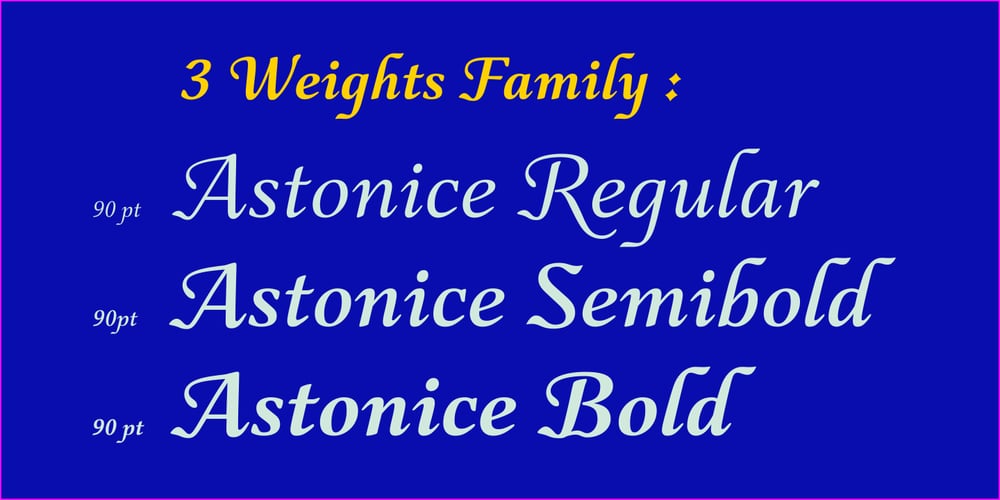
Astonice Font Family was designed by Sudarmaji and published by Asritype. Astonice contains 3 styles and family package options. Astonice is a beautiful calligraphy font family with 3 weight variants: Regular, Semibold and Bold. Astonice has more than 1100 glyphs each, has opentype feature such as stylistic sets, stylistic alternatives, and old number form. Astonice supports a wide range language: Latin plus Greek and Cyrillic. Astonice is suitable for most typing and design such as cards, logos, banner, posters and others as you intended. Beautiful glyphs, OpenType features and 3 weight, Astonice provide you the right choice for your best design.